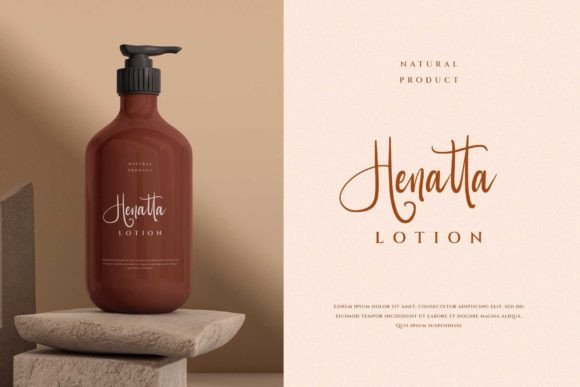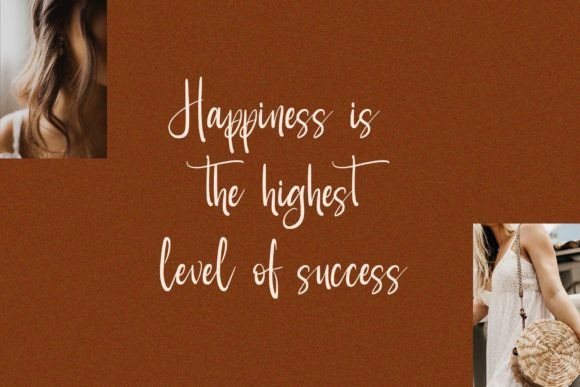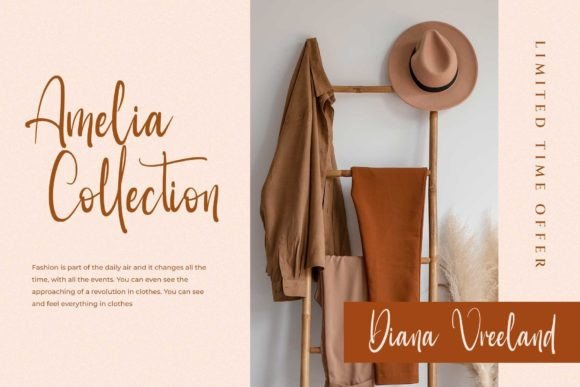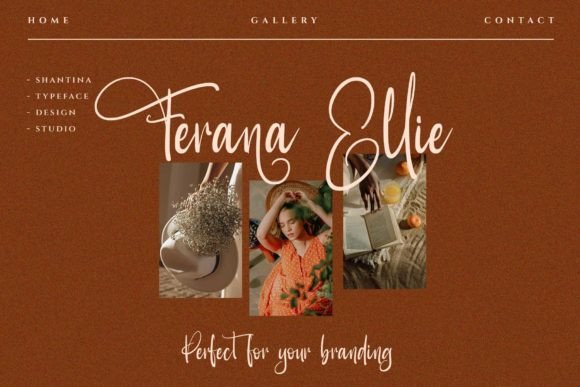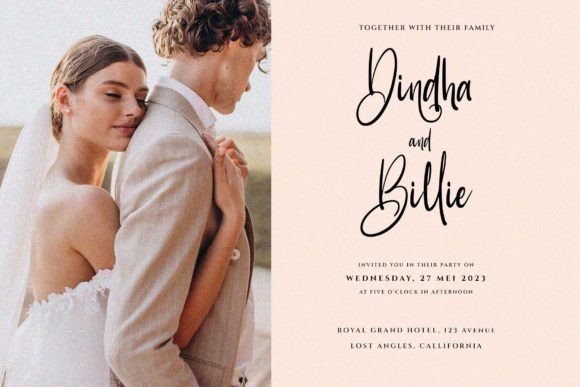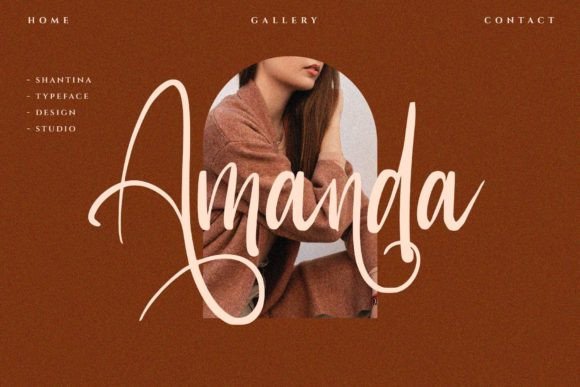
Introduction to Shantina Font
Have you ever stared at a blank page, struggling to find the perfect words to express your creative vision? That’s when the magic happens – you stumble upon a font that makes your ideas come alive. For designers, discovering the perfect font can be a game-changer, and we’re excited to introduce you to the Shantina Font, a stunning script font that’s sure to elevate your creative projects.
Whether you’re working on a high-end design project or simply need a design resource to spice up your social media posts, the Shantina Font is a valuable asset to have in your library. This free download boasts a high-quality design that’s perfect for creating eye-catching visuals with a transparent background. With its intricate details and elegant flair, the Shantina Font is sure to add a touch of sophistication to any creative project.
Key Features of Shantina Font
- High-quality design with a unique, creative style suitable for various projects
- Each character is carefully crafted with high resolution (300 DPI), ensuring crisp and clear display
- Perfect for creative projects requiring a touch of elegance and sophistication, such as wedding invitations, greeting cards, and more
Honest Review: Shantina Font
I recently stumbled upon the Shantina Font, and I must say, it’s a lovely addition to my design resource library. As a designer, I’m always on the lookout for high-quality fonts that can elevate my creative projects. Shantina Font definitely delivers.
What works well is its elegant and sophisticated design, making it perfect for various design applications. I love how it pairs well with a transparent background, allowing the text to stand out and grab attention. The font’s versatility also makes it suitable for a wide range of creative projects, from editorial to advertising.
- ✨ Elegant and sophisticated design
- ✨ Versatile and suitable for various design applications
- ✨ High-quality and free to download
However, I did encounter a few limitations. The font’s weight and style options are somewhat limited, which might not be ideal for designers who prefer more customization options. Additionally, the font’s legibility could be improved for smaller text sizes.
- ⚠️ Limited weight and style options
- ⚠️ Legibility could be improved for smaller text sizes
Overall, I’m impressed with the Shantina Font’s potential and would definitely recommend it to designers looking for a high-quality, free download font. With a bit of tweaking, this font could be a game-changer for many creative projects.
Tips for Getting the Most Out of Shantina Font
For the best results, use the Shantina Font with a transparent background and a clear, legible design.
Experiment with different font sizes and styles to create a unique look.
Common Use Cases for Shantina Font
The Shantina Font is perfect for a variety of creative projects, including:
Graphic design
Logo design
Infographics
Wedding invitations